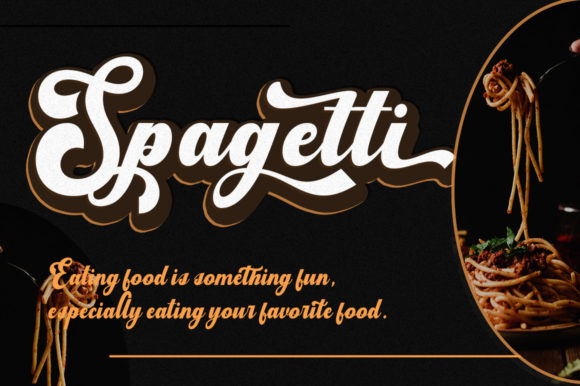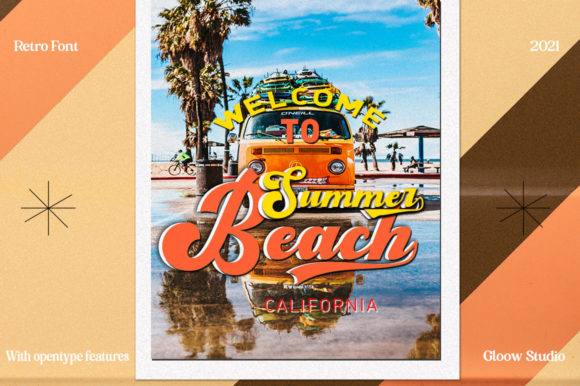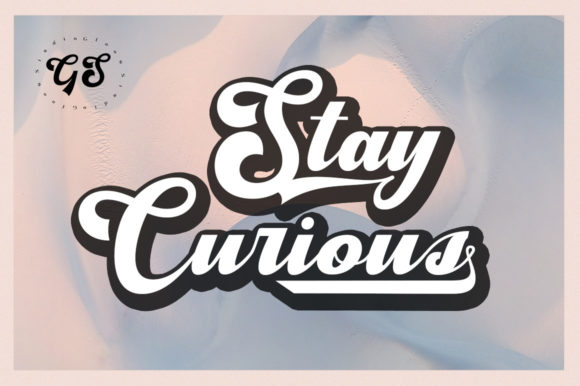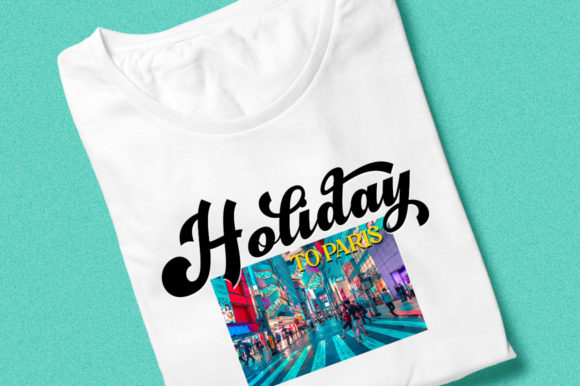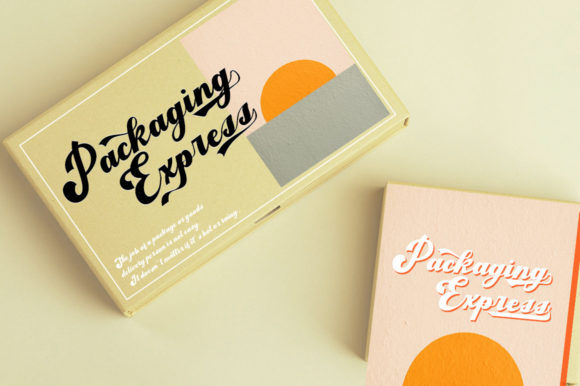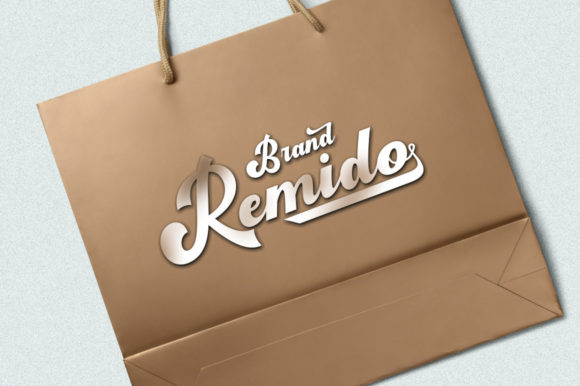
Introducing Anton Charlote Font: The Perfect Blend of Classic and Modern Elements
Are you a designer or crafter looking for a unique and versatile font to elevate your creative projects? Look no further than Anton Charlote Font, a stunning retro script font that seamlessly combines classic and modern elements. This exceptional font is perfect for a wide range of applications, including badges, logos, t-shirts, posters, branding, packaging, signage, book covers, and more!
A Font that Exudes Elegance and Sophistication
Anton Charlote Font boasts a distinctive retro script style that is both elegant and sophisticated. Its classic elements evoke a sense of nostalgia, while its modern twists ensure it remains fresh and contemporary. This font is perfect for designers who want to add a touch of vintage charm to their work without sacrificing modern appeal.
One of the standout features of Anton Charlote Font is its incredible versatility. Its uses are endless, and it can be applied to a wide range of projects, including:
• Badges: Create eye-catching badges with Anton Charlote Font that are perfect for events, awards, or recognition.
• Logos: Use this font to craft unique and memorable logos that will help your brand stand out.
• T-shirts: Design stunning t-shirts with Anton Charlote Font that will make your apparel stand out from the crowd.
• Posters: Create visually striking posters that showcase your message in style.
• Branding: Establish a strong brand identity with Anton Charlote Font that exudes elegance and sophistication.
• Packaging: Elevate your packaging design with this beautiful font that will make your products shine.
• Signage: Use Anton Charlote Font to create eye-catching signage that will grab attention.
• Book Covers: Design captivating book covers with this font that will make your book stand out on the shelves.
Why Choose Anton Charlote Font?
With so many fonts available, why choose Anton Charlote Font? Here are just a few reasons why this font stands out:
• Unique and distinctive style that will set your designs apart.
• Exceptional versatility that makes it suitable for a wide range of projects.
• PUA encoded for easy access to glyphs and swashes.
• Perfect blend of classic and modern elements that will appeal to designers and crafters alike.
In conclusion, Anton Charlote Font is an exceptional retro script font that is perfect for designers and crafters looking to add a touch of elegance and sophistication to their creative projects. With its unique blend of classic and modern elements, endless creative possibilities, and PUA encoding for easy access, this font is a must-have for anyone looking to elevate their designs. So why wait? Get your hands on Anton Charlote Font today and start creating stunning designs that will leave a lasting impression!